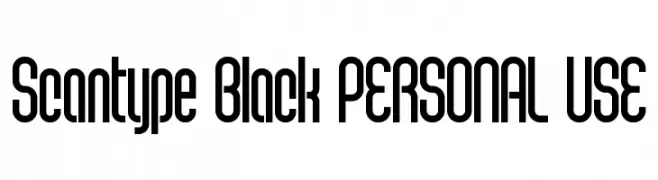
( Sean Bartlett - www.bartlettdigital.com )
A modern, geometric font with a structured and technical appearance.
( Pollem Studio - Muhammad Nur - www.creativefabrica.com/designer/polem/ref/2050/ )
A sophisticated script font with flowing, cursive letters and elegant flourishes.
( Måns Grebäck - www.mansgreback.com )
A bold, modern font with elongated, narrow characters and a uniform appearance.
( Måns Grebäck - www.mansgreback.com )
A modern, condensed font with high contrast and elongated letterforms.
( Måns Grebäck - www.mansgreback.com )
A modern, elongated font with sleek, narrow characters.
( Vladimir Nikolic - www.coroflot.com/vladimirnikolic )
A bold, italic font with a striped, dynamic design.
( Typhoon Type - Suthi Srisopha - www.typhoontype.net )
An elegant, cursive font with intricate flourishes and a classic calligraphic style.
( Typhoon Type - Suthi Srisopha - www.typhoontype.net )
An elegant, cursive font with ornate flourishes and a calligraphic style.
( Peter Wiegel - www.peter-wiegel.de/ )
A bold, dramatic Blackletter font with ornate, angular lines.
( Vladimir Nikolic - www.coroflot.com/vladimirnikolic )
A bold, 3D, italic font with sharp angles and a strong, modern look.